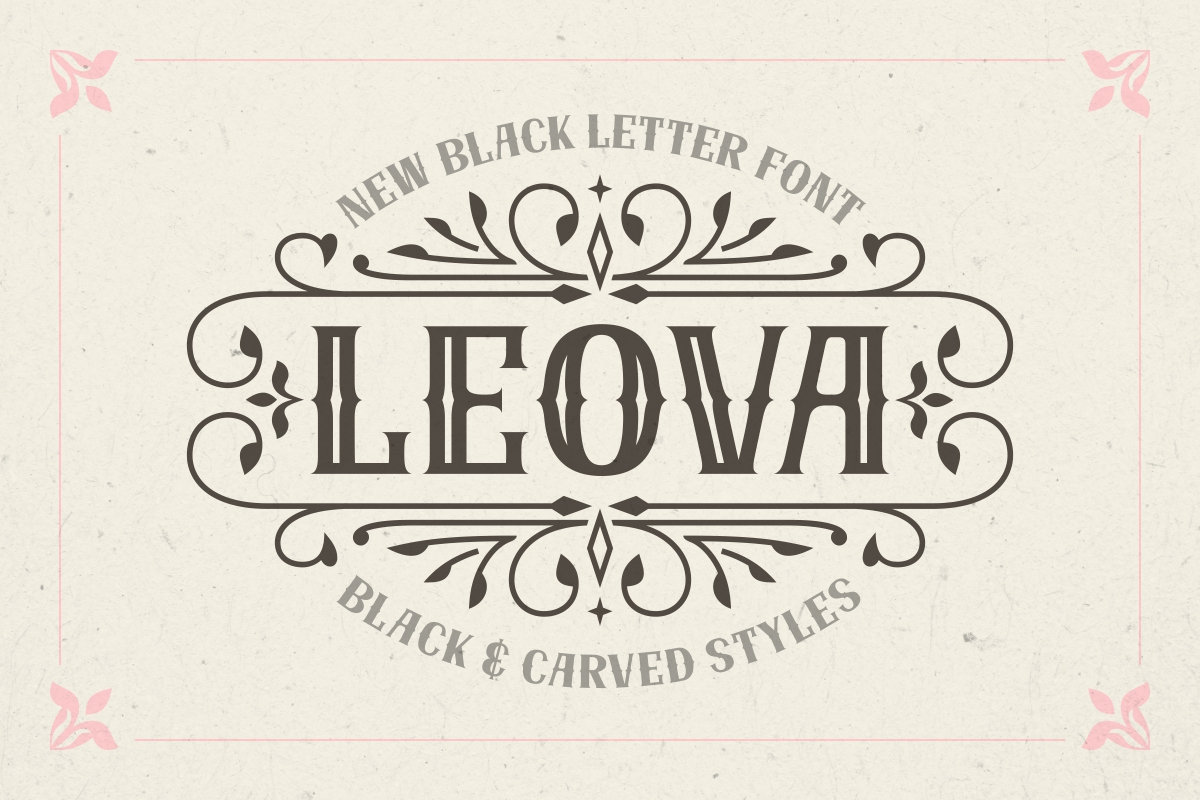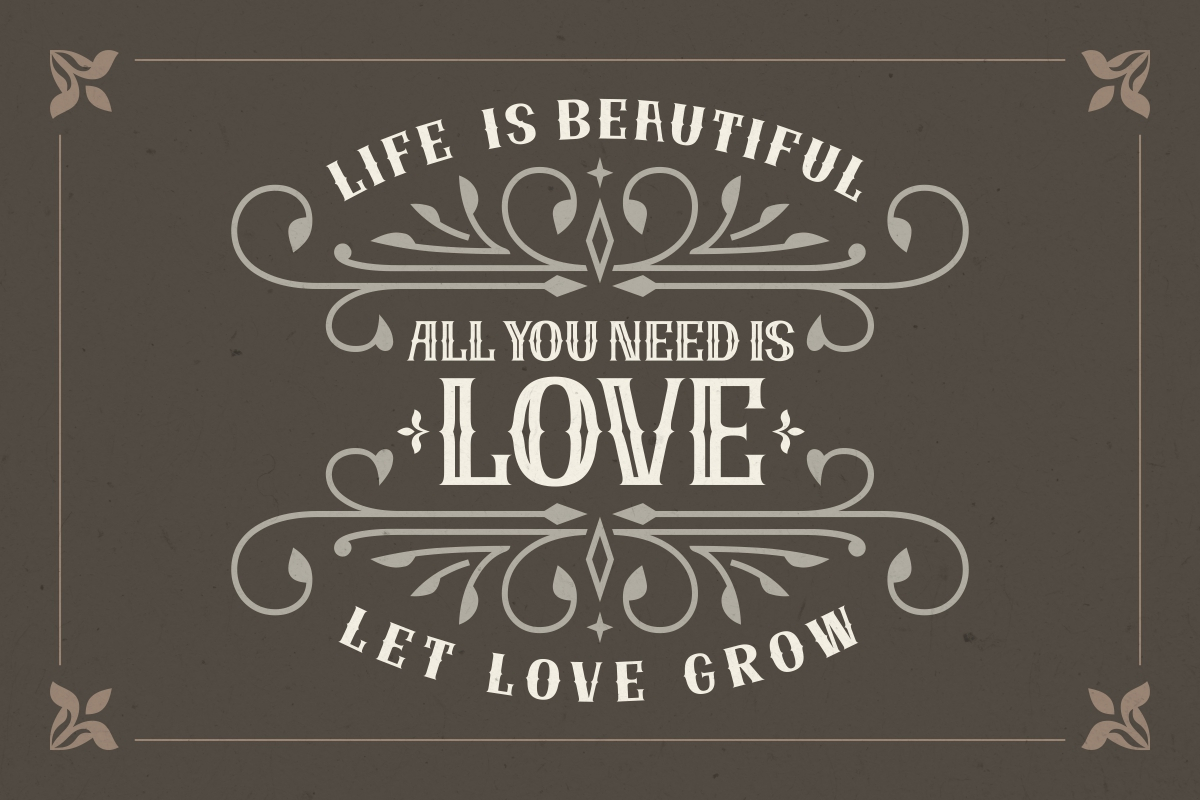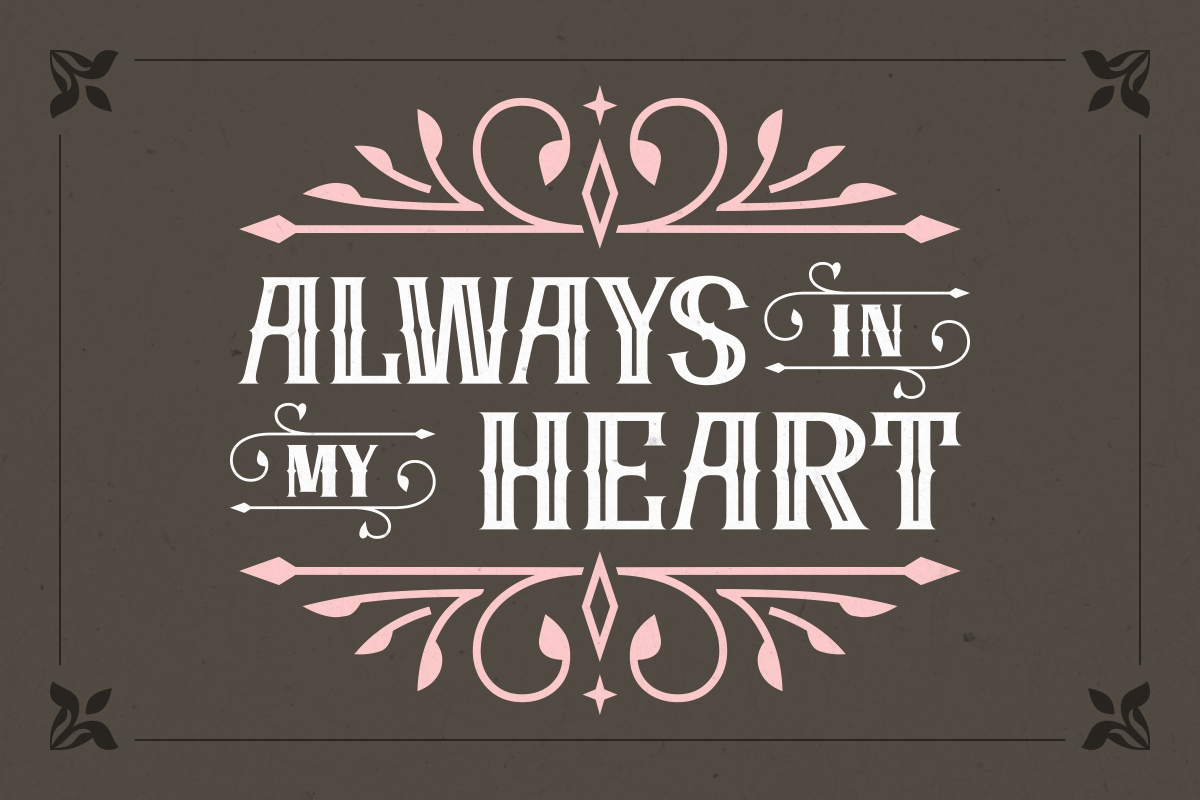
Leova Font
About Leova Font
Leova is an incredibly distinct blackletter font with unique elements. Masterfully designed to become a true favorite, this font has the potential to bring each of your creative ideas to the highest level!